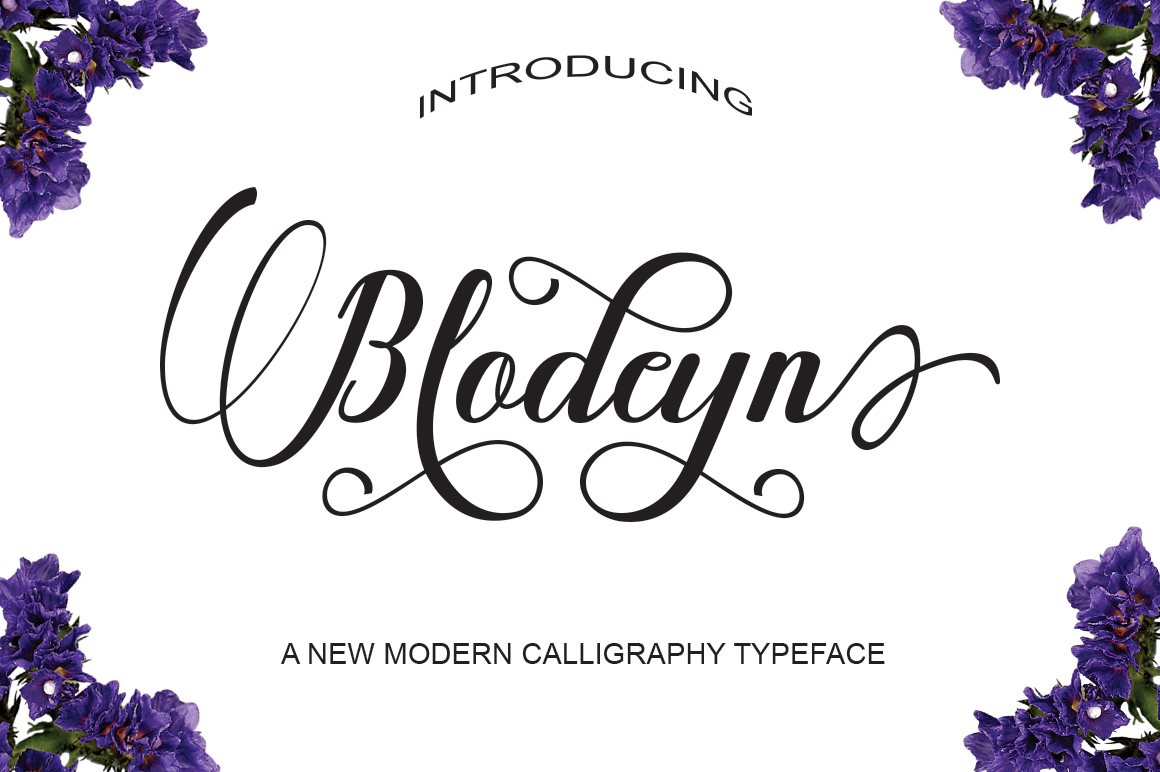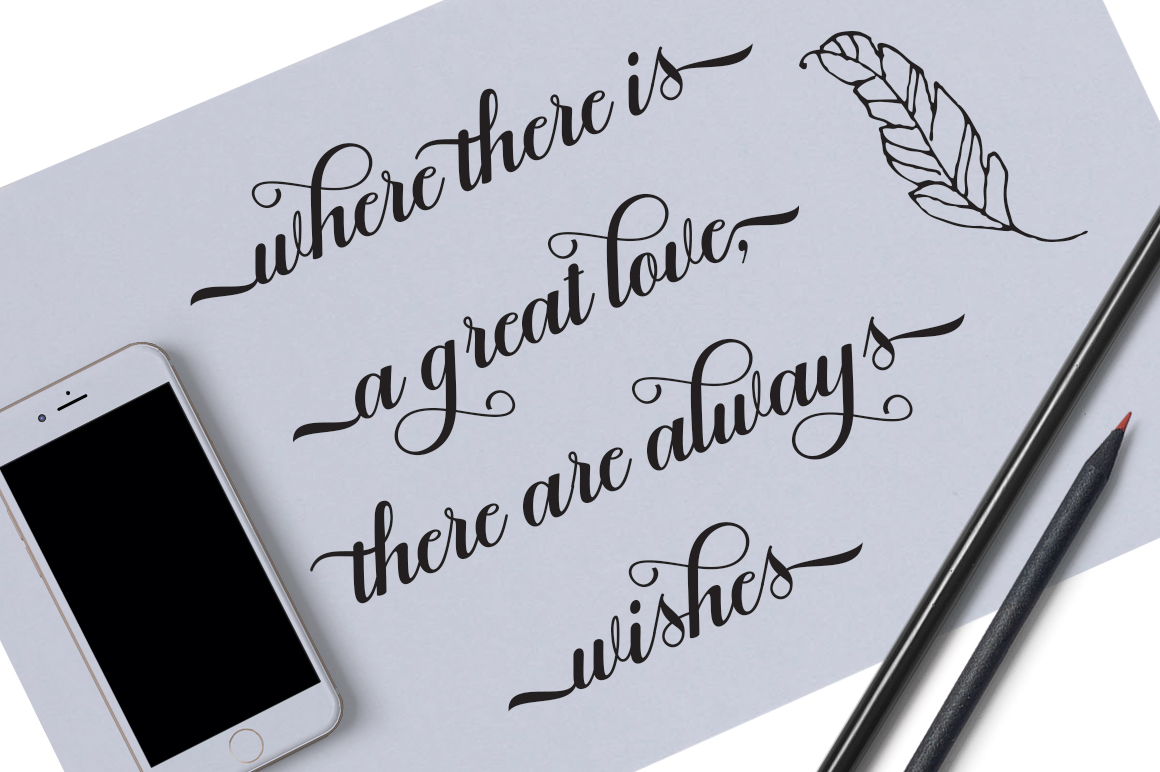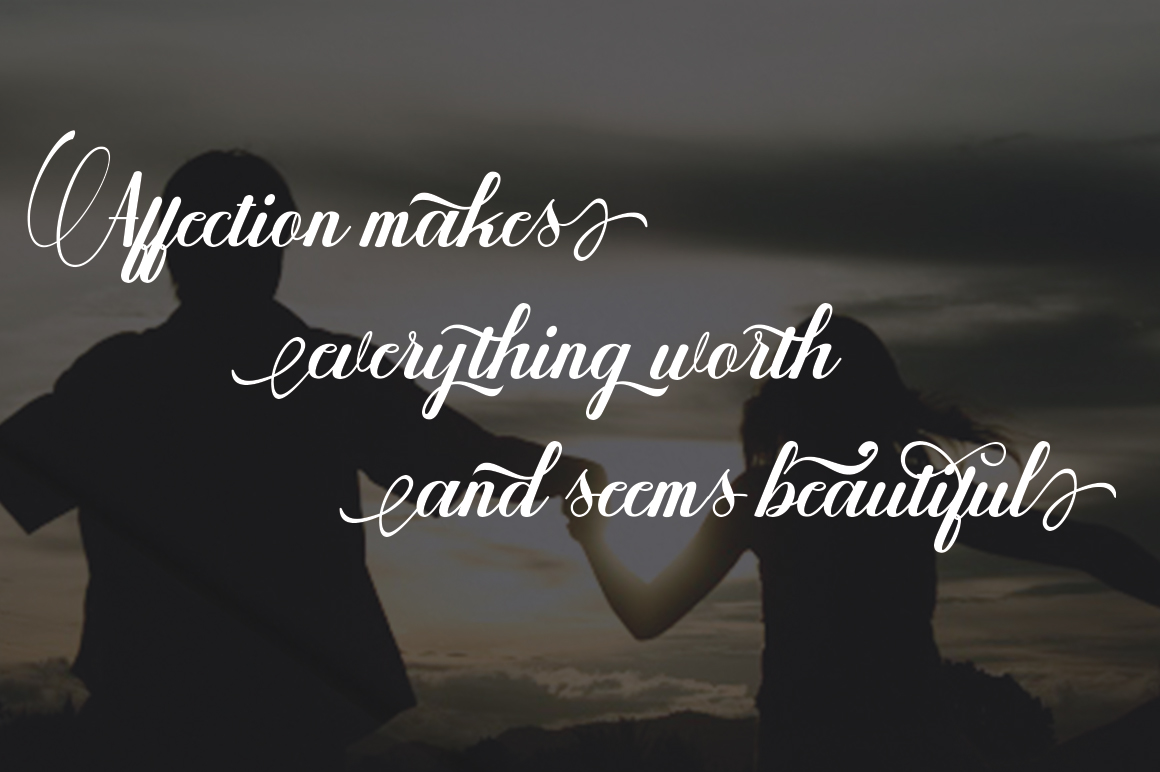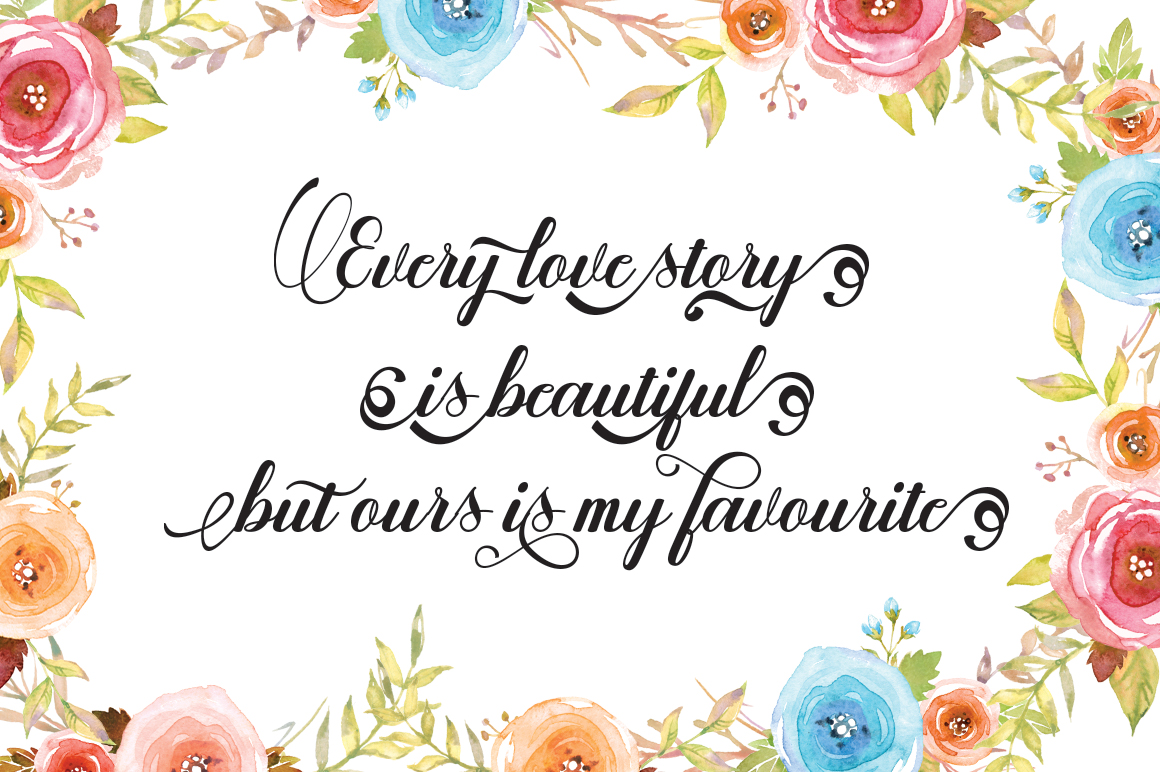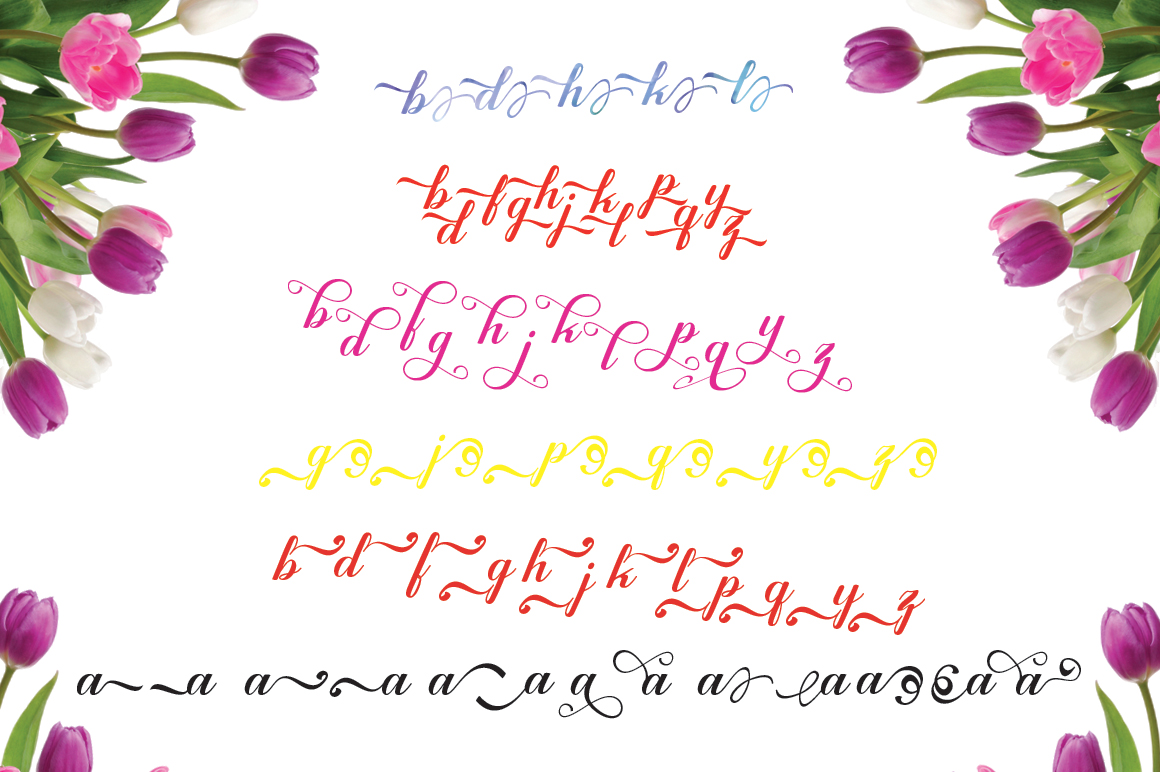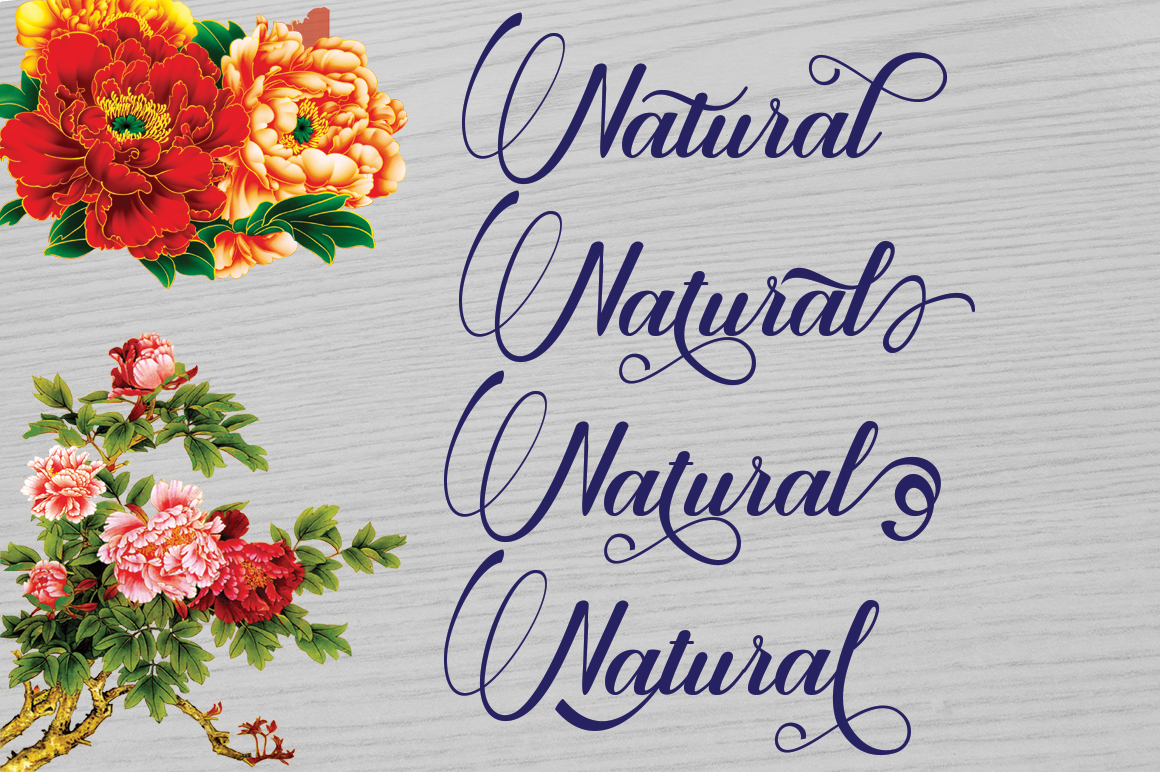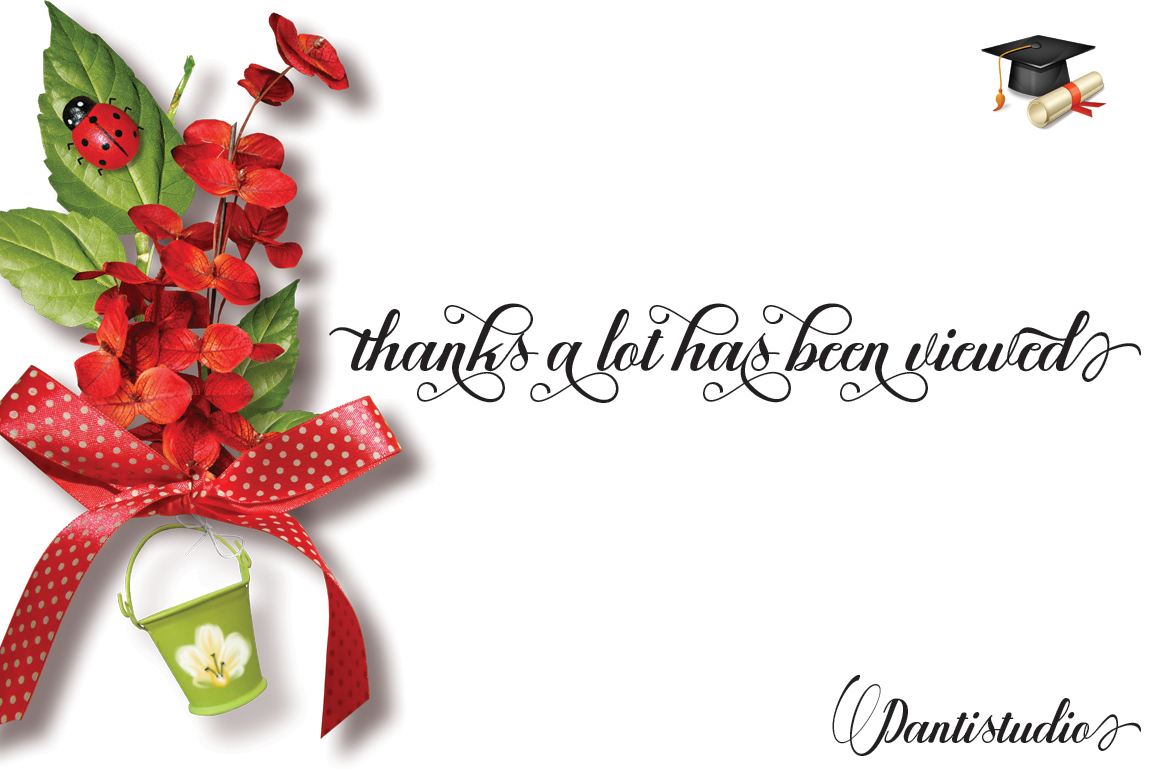
HomeScript FontsBlodeyn Font Script Fonts Blodeyn Font FacebookXPinterestWhatsApp Blodeyn Font Poster 2 Blodeyn Font Poster 3 Blodeyn Font Poster 4 Blodeyn Font Poster 5 Blodeyn Font Poster 6 Blodeyn Font Poster 7 About Blodeyn Font Blodeyn is a stylish, elegant calligraphy font. Packed with bonus swashes. DOWNLOAD NOW People also explored Photography Font Me Love You Font Geora Font Zabar Font Senjamahesa Font Angelina Font Candola Font Densta Font Scientific Graphics Font 291 0 TagsBlodeyn Font Previous articleSigarillos FontNext articleMiss Neally Font LEAVE A REPLY Cancel reply Comment: Please enter your comment! Name:* Please enter your name here Email:* You have entered an incorrect email address! Please enter your email address here Website: Save my name, email, and website in this browser for the next time I comment. Personal Use Free Casual Personal Use Free Read more about this font Hello Sister Personal Use Free Read more about this font Rhetorical Personal Use Free Read more about this font Evensong Hollow Personal Use Free Read more about this font BLOG Free vs Paid Fonts: Why Investing in Premium Fonts Is Worth It Free vs Paid Fonts: Why Premium Fonts Are Worth It in 2025 The debate of free vs paid fonts continues in the design world. While... 5 Fonts That Will Dominate Design Trends in 2026 Using Fonts in Digital Marketing: Tips to Strengthen Your Brand Identity To increase your work productivity, choose the most readable fonts.